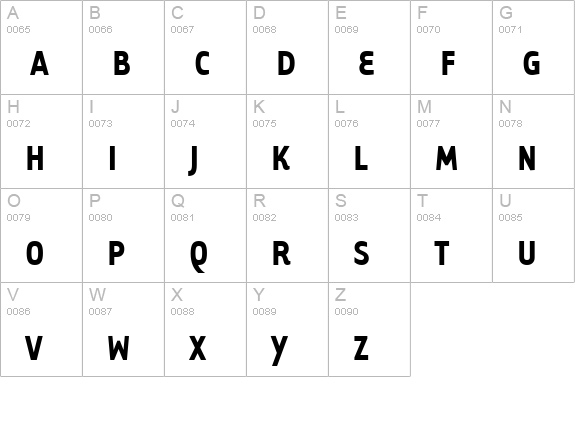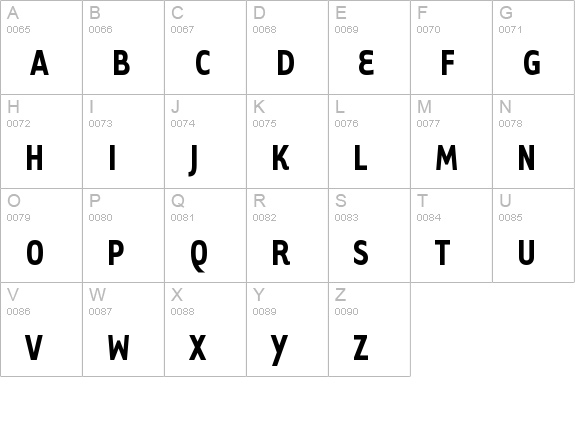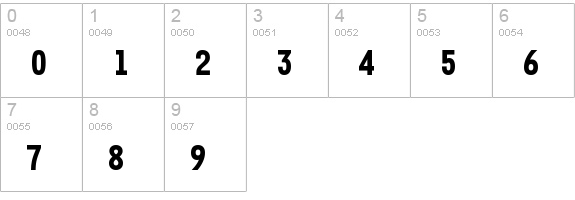
TarzanaNarrow Bold is a strong, high-contrast variant in the TarzanaNarrow typeface family \xE2\x80\x94 well suited to headlines, attention-grabbing titles, and strong calls-to-action.
Introducing TarzanaNarrow Bold, a visually striking and versatile font that commands attention with its bold and powerful presence. Designed to make a lasting impression, this font boasts a unique narrow style that exudes modernity and sophistication. TarzanaNarrow Bold is perfect for a wide range of design projects, from eye-catching headlines and logos to captivating advertisements and branding materials. Its bold and sleek letterforms create a strong visual impact, ensuring that your message will be delivered with confidence and impact. This font's versatility knows no bounds, as it seamlessly adapts to both digital and print mediums. Its crisp and clean lines make it easy to read, even at smaller sizes, while its bold weight ensures legibility and prominence in any context. But what makes TarzanaNarrow Bold even more enticing is that it is freely available for download at FontsMarket.com. Yes, you heard it right – this exceptional font is just a click away, waiting to unleash its creative potential in your projects. Say goodbye to restrictive licensing fees and hello to limitless possibilities. Whether you're a graphic designer, a creative professional, or simply someone who appreciates the beauty of typography, TarzanaNarrow Bold is a must-have addition to your font collection. Its captivating style, combined with its effortless availability, allows you to bring your designs to life with confidence and ease. So, why wait? Experience the power and elegance of TarzanaNarrow Bold today by downloading it for free at FontsMarket.com. Elevate your designs, captivate your audience, and make a bold statement with this extraordinary font that is just a few clicks away.